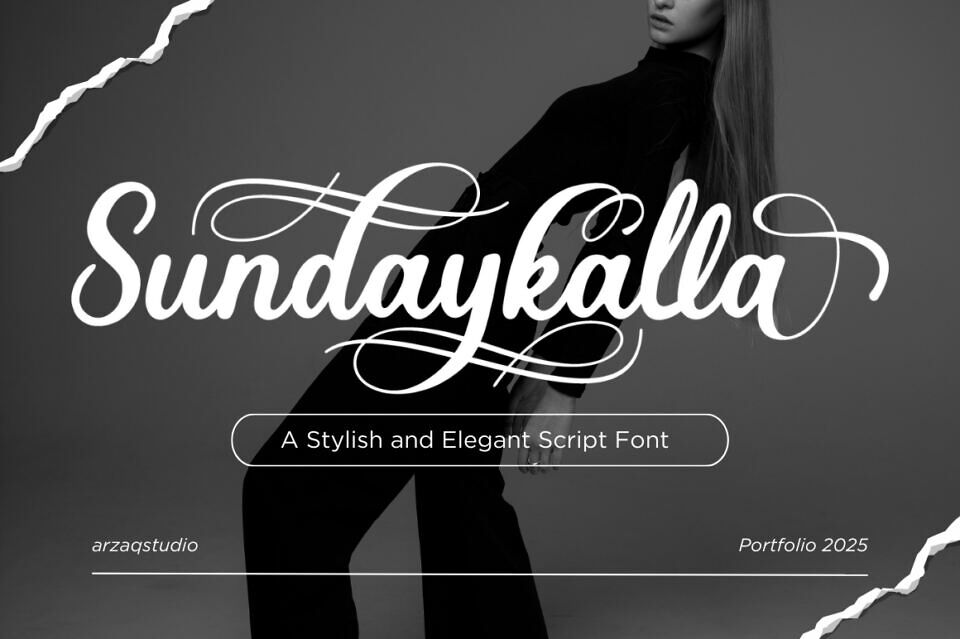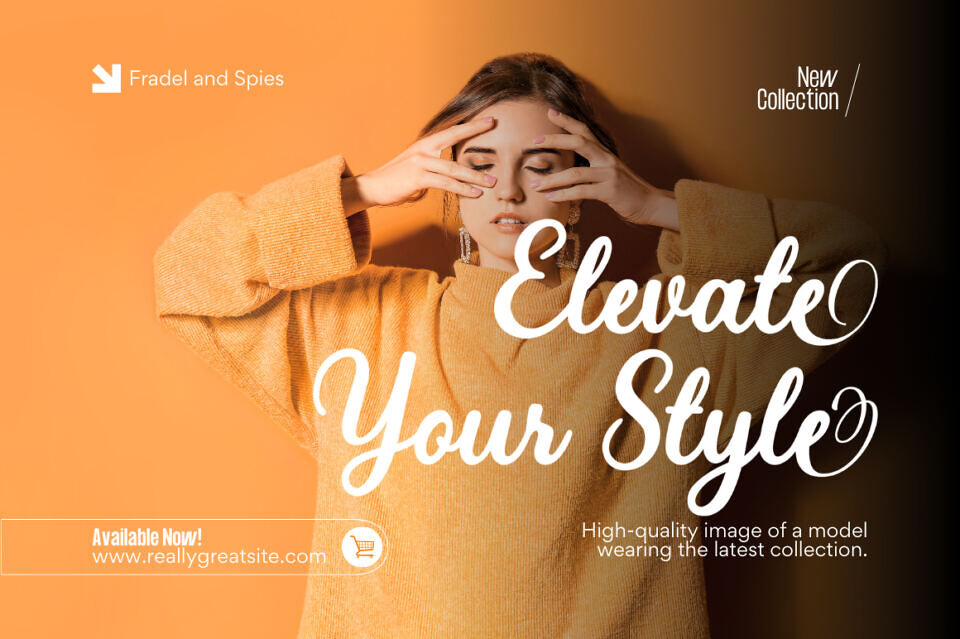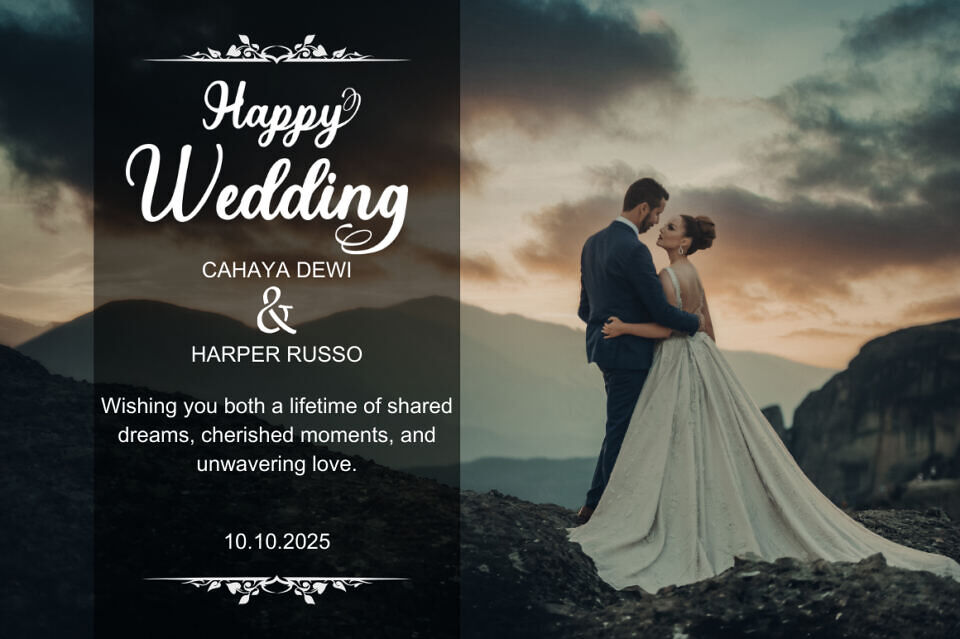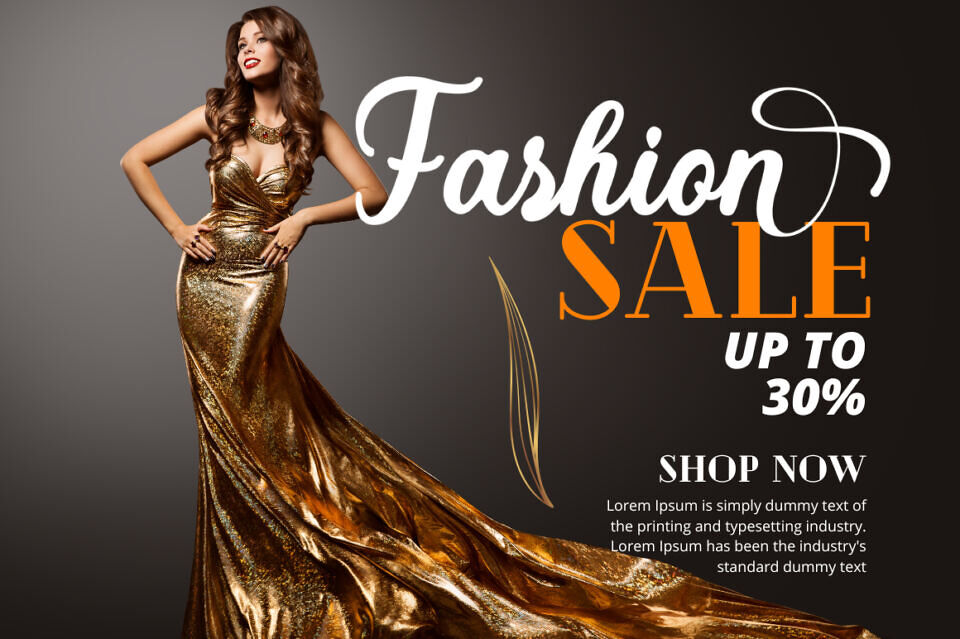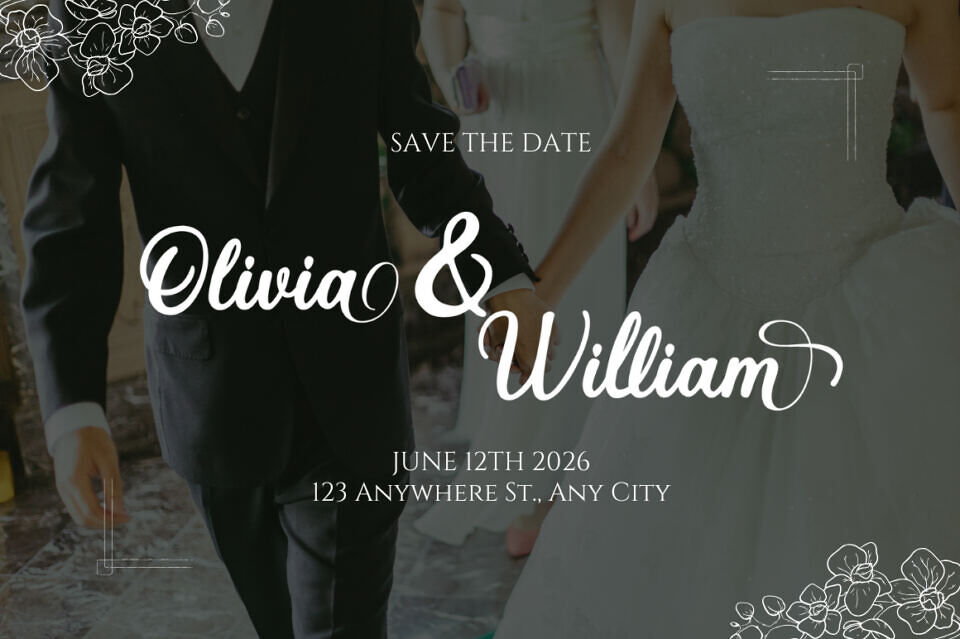
Sundaykalla is a stylish and elegant script font with beautiful swashes and smooth curves, designed to bring a touch of sophistication to your creative projects. Perfect for invitations, branding, logos, quotes, greeting cards, wedding stationery, and more. Its modern yet timeless feel makes it versatile for both digital and print designs.